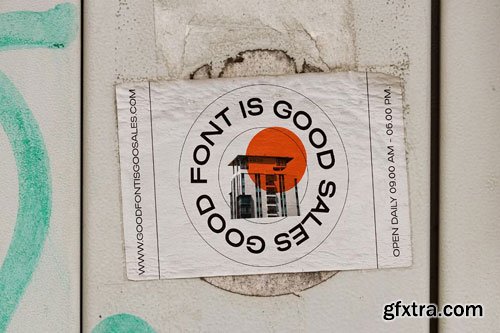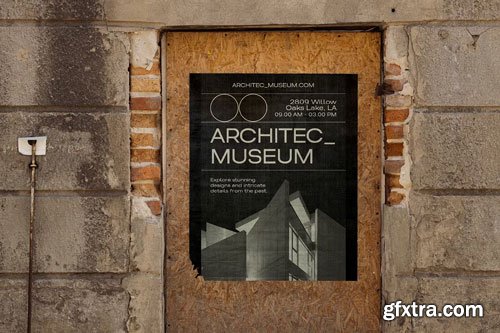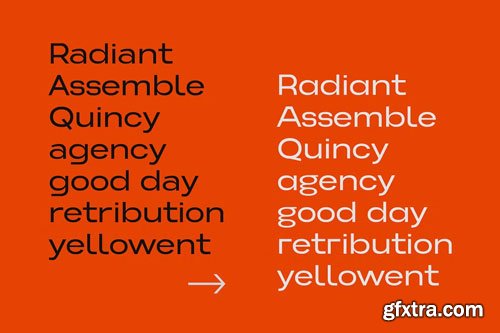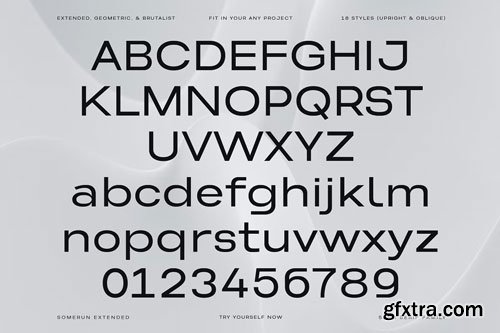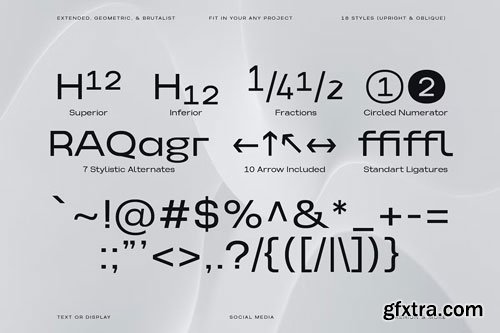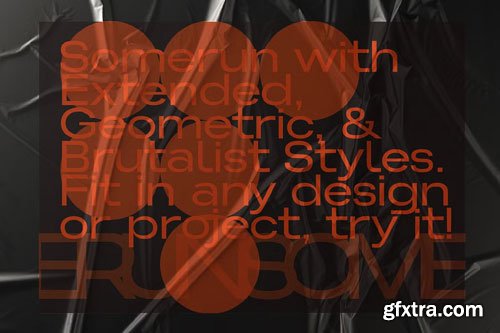
CreativeMarket - Somerun Extended Font
Somerun is a modern typography with our curated selection of sans serif extended fonts embody grotesque, geometric, and brutalist styles. These typefaces are meticulously crafted to deliver clarity, neutrality, and impactful visual presence, making them ideal for contemporary design projects. Somerun extended sans serif fonts are crafted with impeccable legibility and sleek, seamless, aesthetic appeal. They are clean, modern, and versatile options for any project like fashions, print design, social media, creatives, poster, signate, branding, UI/UX, web typography, packaging, or editorial design. It will elevate your creative projects and keep your designs on-trend.